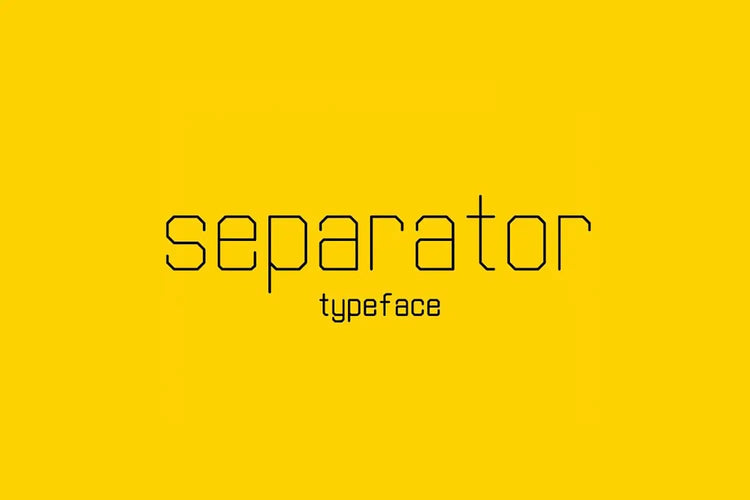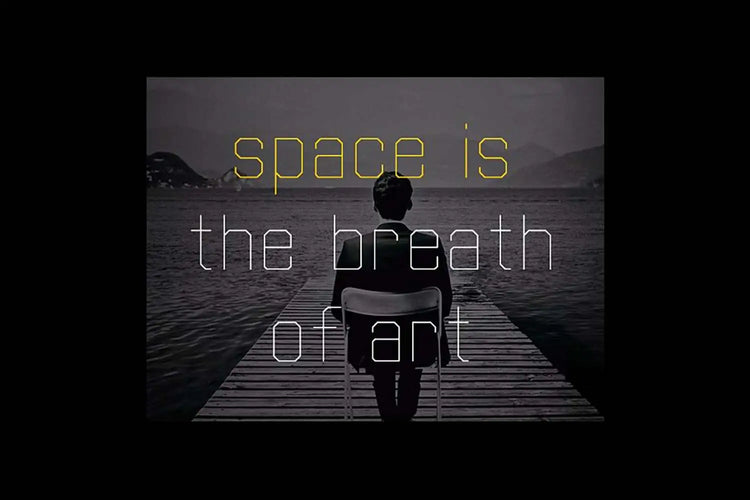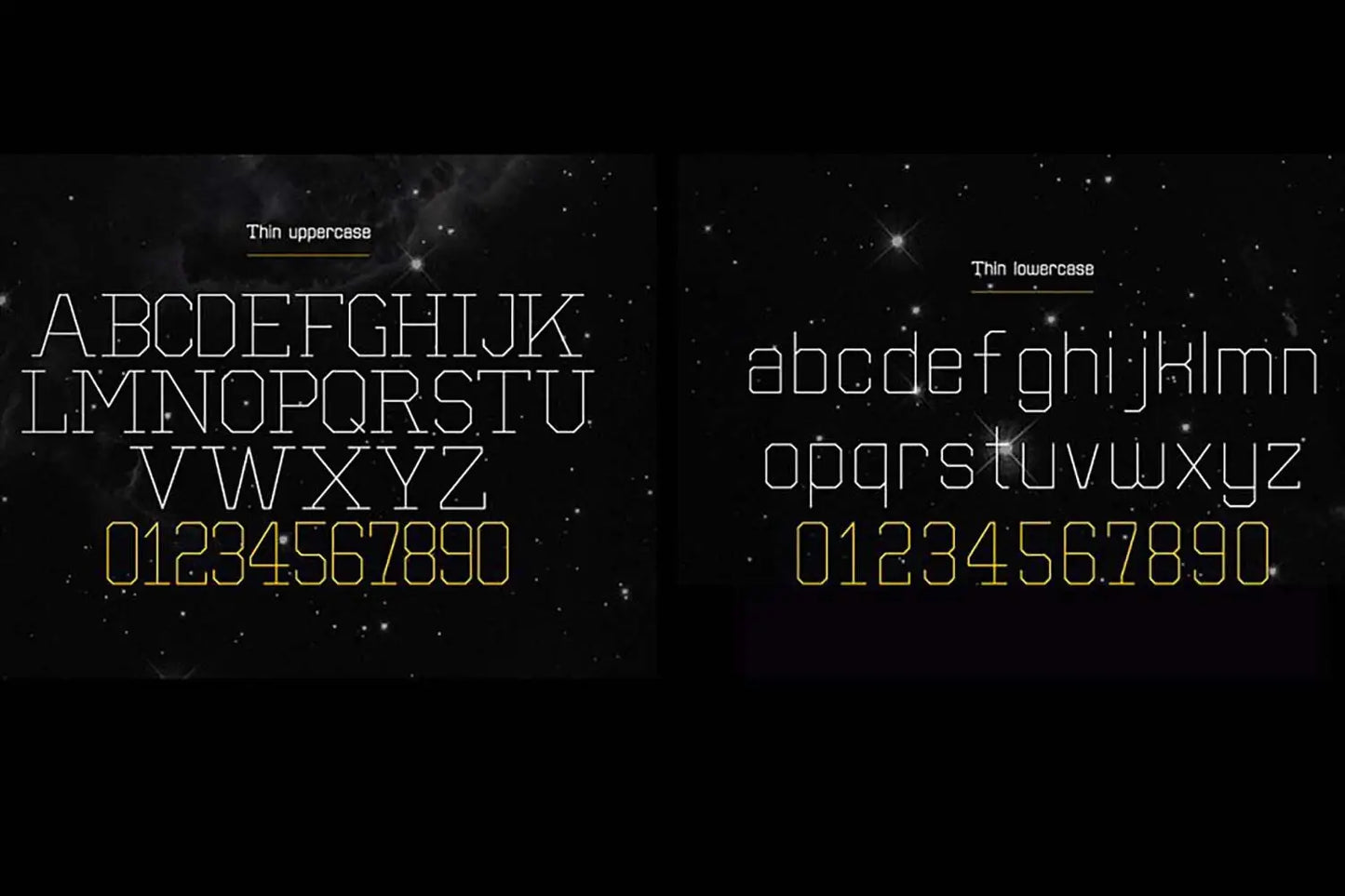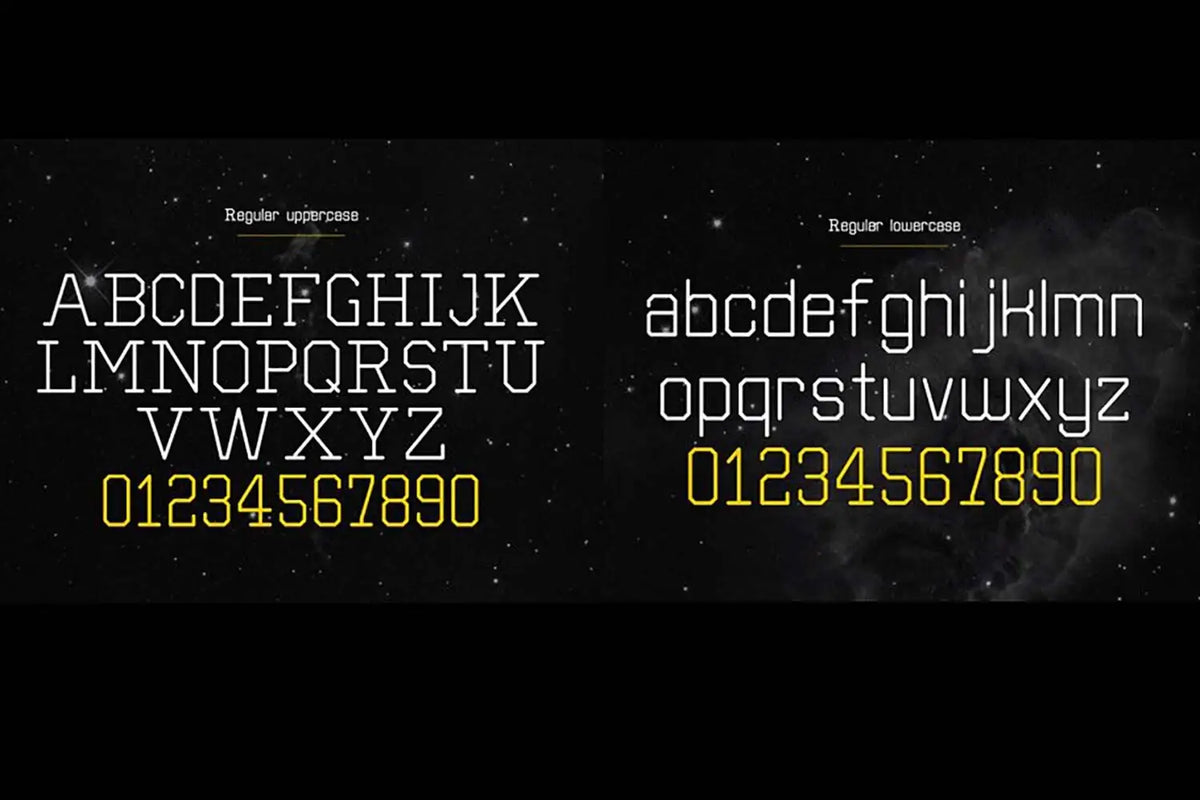
Separator — Experimental Display Sans Font
About Separator
So, let's talk about this Separator font, shall we? It is a rebellious typographic experiment! I mean, who needs curves when you can have straight lines?
Picture this: I'm watching Prometheus trailers in 2012, and boom! Separator font is conceived. Those trailers were like a creative lightning bolt, sparking this font's existence.
The David Connection
Now, you might wonder, What's the connection to David? Well, remember how David, the android, was all about mimicking human emotions in the movie? Separator font dives into themes like artificial intelligence and our tech-driven dance with humanity.
AI, my friends, is no longer science fiction; it's our annoying neighbour, borrowing sugar and taking over our fonts.
If Separator font were a celebrity
And voila, you get Separator font – a sleek, futuristic, and slightly rebellious font that's got that David-from-Prometheus vibe. It's like the font version of a cool android with enigmatic charm!